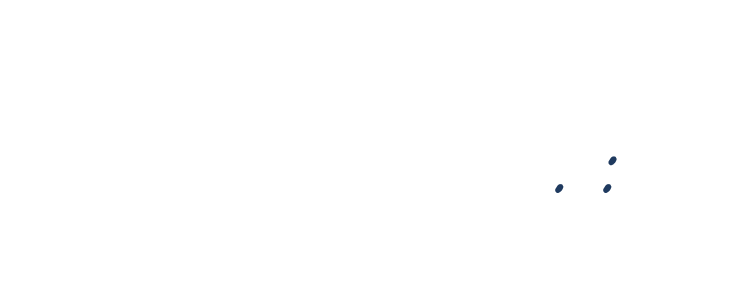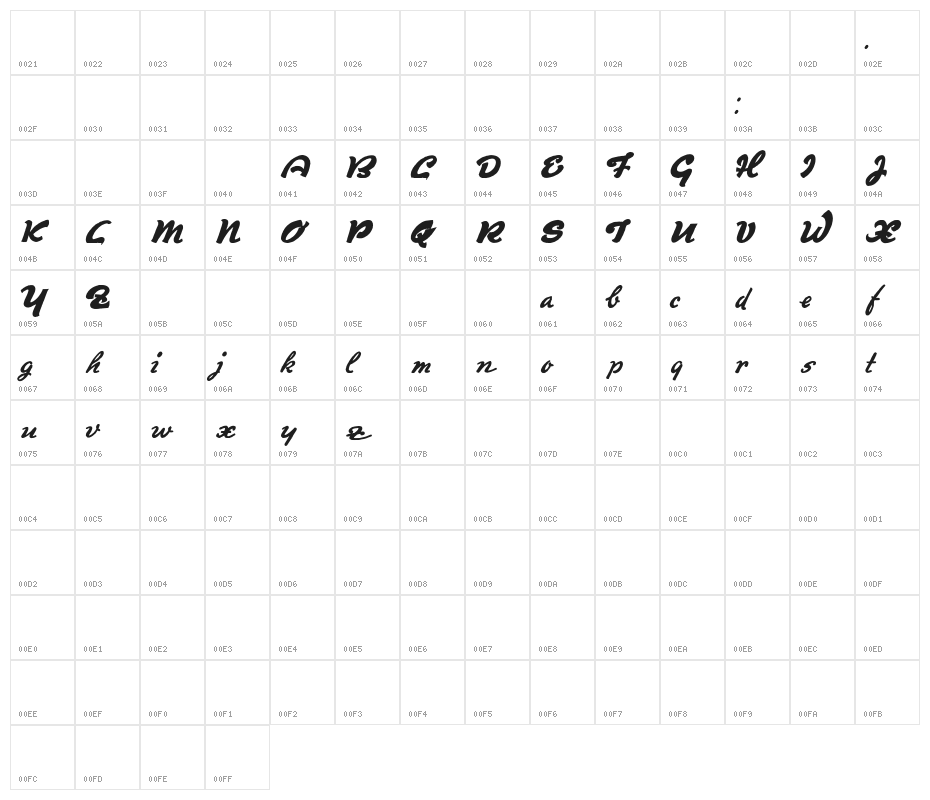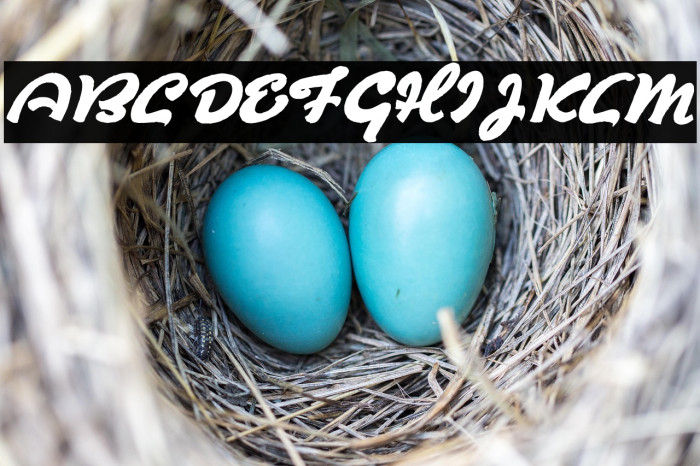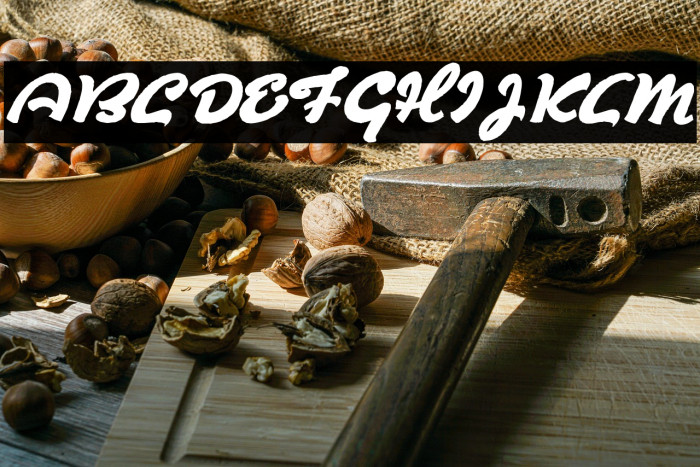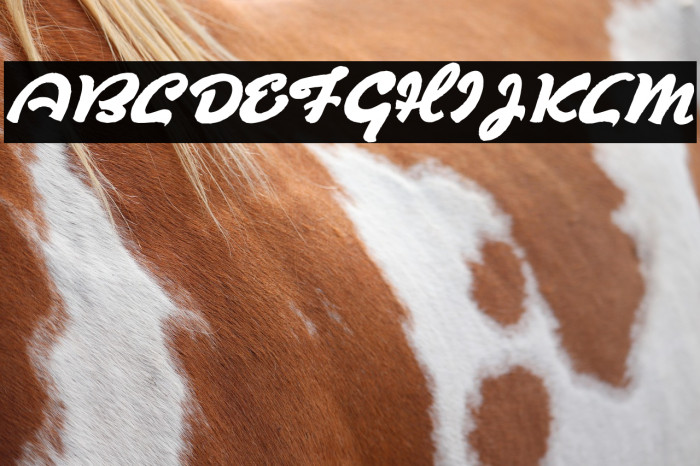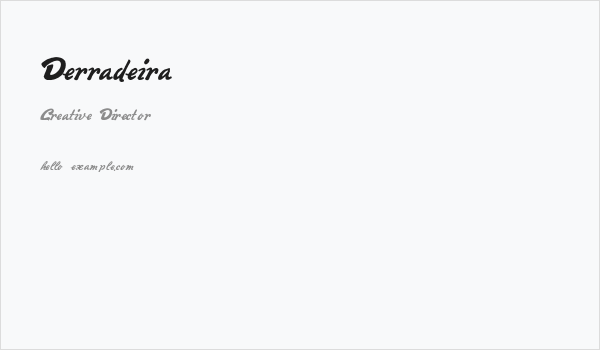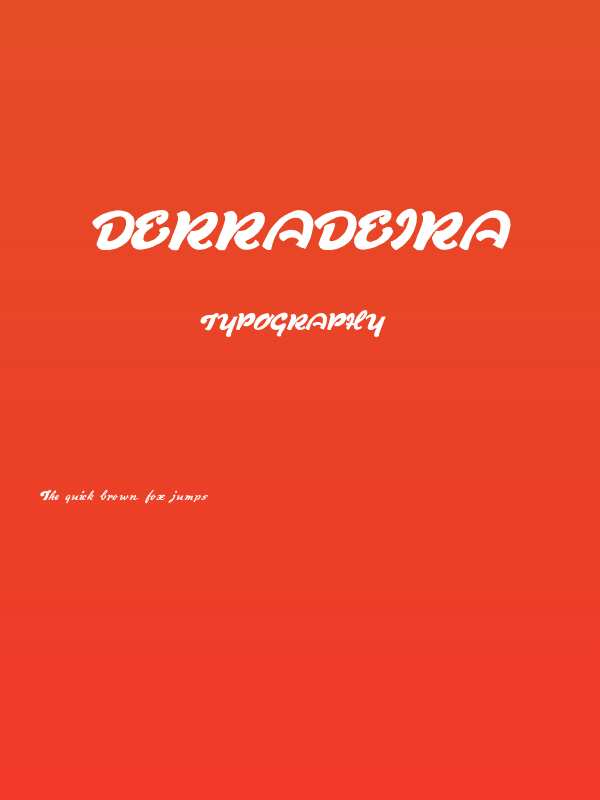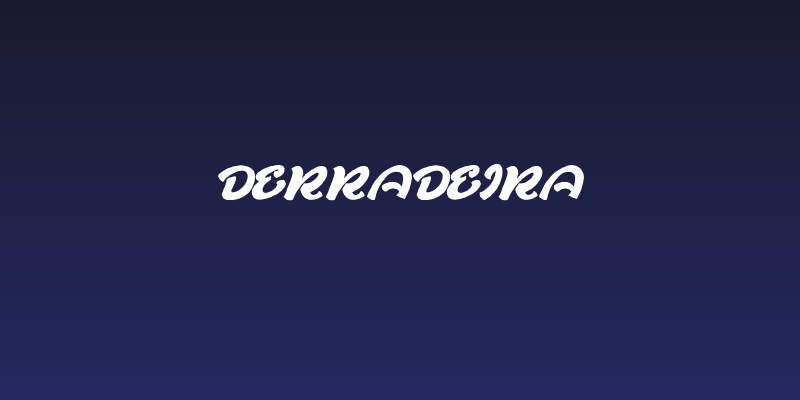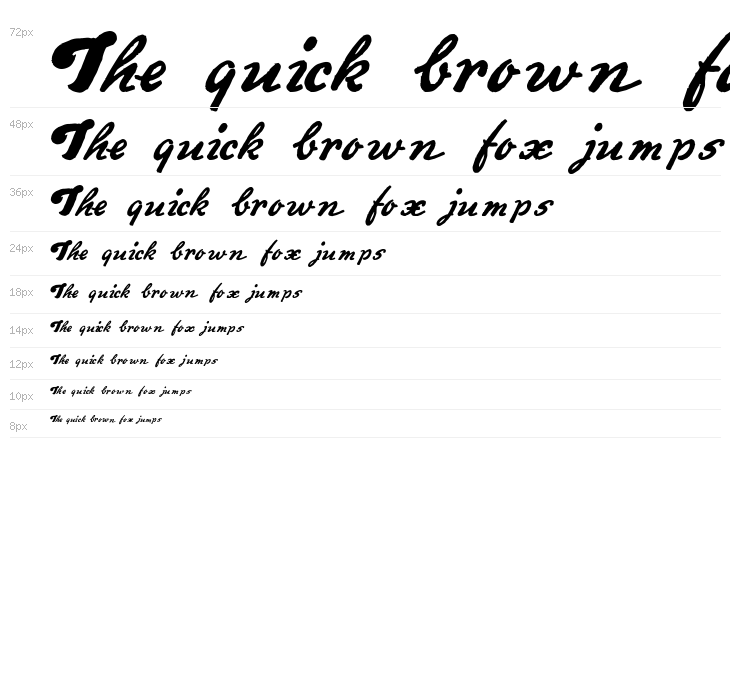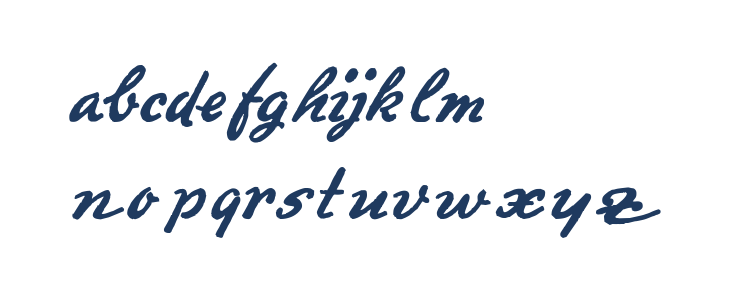
Derradeira Font
Derradeira Description
This font features a bold, cursive style with a strong emphasis on fluidity and elegance. The characters are connected, creating a seamless flow that mimics natural handwriting. The uppercase letters are slightly larger and more ornate, while the lowercase letters maintain a consistent, flowing script. The strokes are thick, providing a strong visual impact, and the overall design is reminiscent of traditional calligraphy with a modern twist. The font's dynamic curves and loops add a sense of movement and grace, making it suitable for creative and expressive projects.
| Proposed Projects | Ideal for wedding invitations, greeting cards, branding, and artistic projects that require a personal touch. |